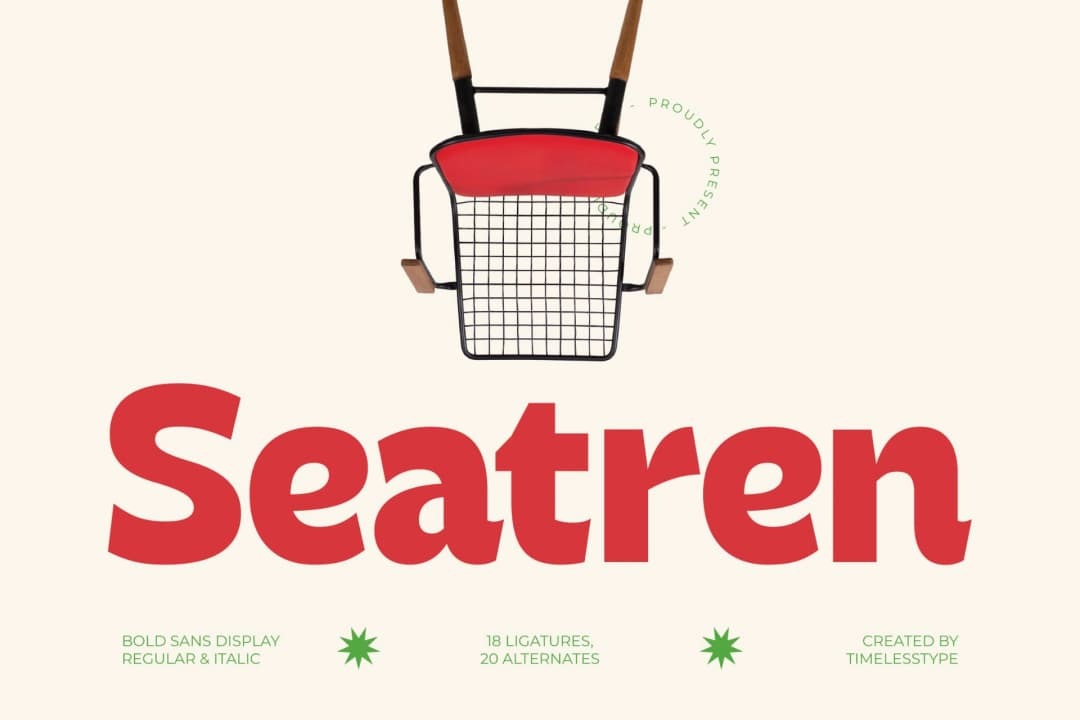
Seatren Font
Seatren Font is a versatile font designed to adapt beautifully across different design styles, offering dependable readability and balance. Command immediate attention with the confident curves of Seatren – Bold Sans Display Font. This typeface is a heavy-hitting display sans that marries a distinct vintage flair with ultra-modern legibility. Its robust weight and gently rounded terminals create an unmistakable aesthetic, perfect for designs requiring a strong, yet approachable, personality. Seatren – Bold Sans Display Font provides the visual foundation necessary for high-impact branding and marketing campaigns that need to feel both contemporary and nostalgically resonant.
Unlock maximum creative flexibility through extensive OpenType features. Designed for professional workflow, Seatren – Bold Sans Display Font includes over 18 unique ligatures and 20 stylistic alternates. These assets allow designers to customize headlines and wordmarks, adding a layer of sophisticated visual rhythm. Its availability in both Regular and Italic styles ensures it remains highly versatile enough to handle diverse design layouts, offering dynamic variation while maintaining crucial typographic consistency.
Expand your design reach globally with robust language compatibility. With its extensive multilingual support, Seatren – Bold Sans Display Font adapts seamlessly across global markets, making it incredibly versatile for international projects. This comprehensive glyph set ensures that your brand voice remains clear and professional, whether deployed in European, Western, or Central European languages, solidifying its place as an essential tool for global communication.
Define your next major project with this memorable display face. Seatren – Bold Sans Display Font is perfectly suited for large-format editorial titles, impactful product packaging, and dynamic poster design where visibility is paramount. It is the ideal choice for creating distinctive luxury branding, food and beverage labels, or modern digital advertising that requires a compelling, nostalgic twist. Elevate your portfolio today with the undeniable character and bold statement delivered by Seatren – Bold Sans Display Font.